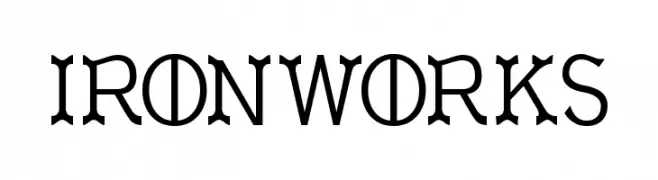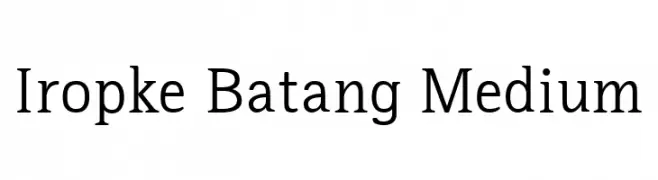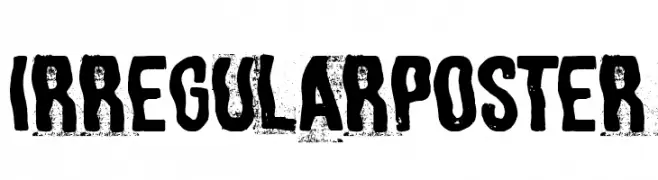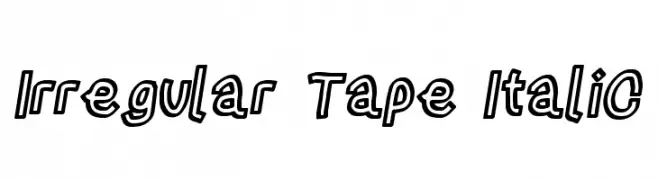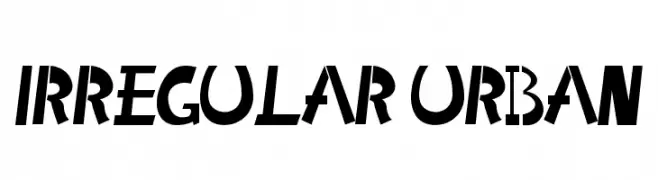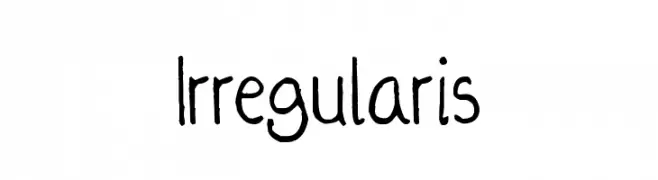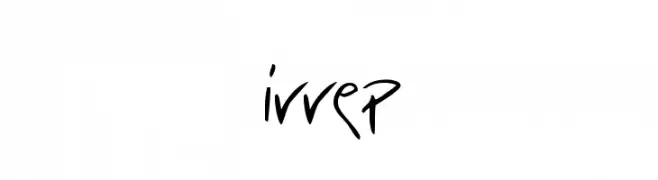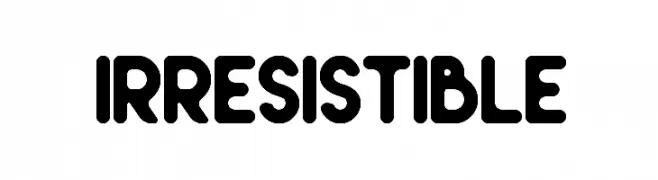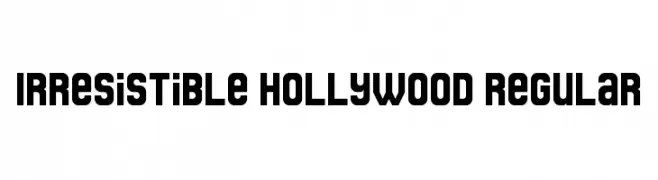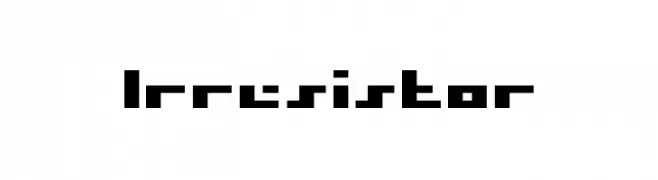
A decorative font with industrial, ironwork-inspired serifs and bold characters.
A classic serif font with a balanced and elegant appearance, ideal for traditional and sophisticated designs.
A bold, distressed font with a rugged, handcrafted appearance.
A bold, modern font with sharp angles and a dynamic, urban style.
A playful, irregular handwritten font with dynamic strokes.
A playful, handwritten font with dynamic strokes and an informal style.
A bold, playful font with rounded edges and a modern style.
A bold, geometric font with a modern, uniform appearance.
A bold, distressed font with a vintage, rugged texture.
A bold, angular font with a rugged, vintage-inspired style.
A bold, decorative font with a distressed, vintage look.
A bold, textured font with a distressed, vintage appearance.
A casual, handwritten font with a dynamic and organic style.
A bold, expressive handwritten font with dynamic brush strokes.
A bold, textured script font with a hand-painted, artistic style.
A geometric, art deco-inspired font with tall, narrow letterforms and sharp angles.
A modern, geometric font with an Art Deco influence, featuring thin, elongated letterforms.
An elegant, cursive script font with graceful loops and swirls.
A modern sans-serif font with clean lines and balanced spacing.
A bold, modern sans-serif font with clean lines and strong presence.
A bold, italic sans-serif font with a modern and dynamic style.
A bold, modern sans-serif font with clean lines and excellent readability.